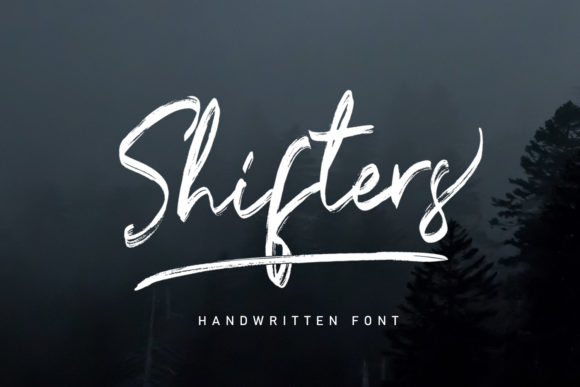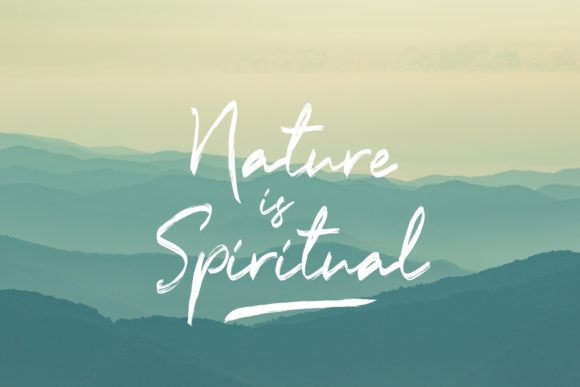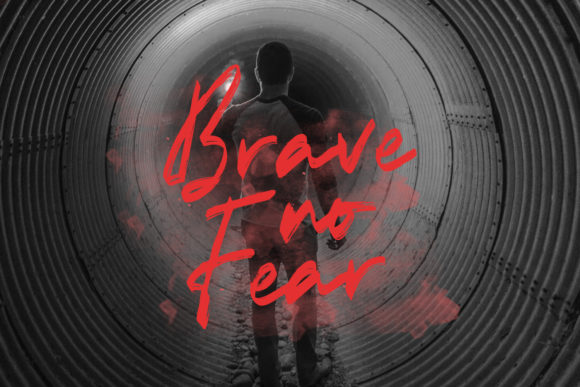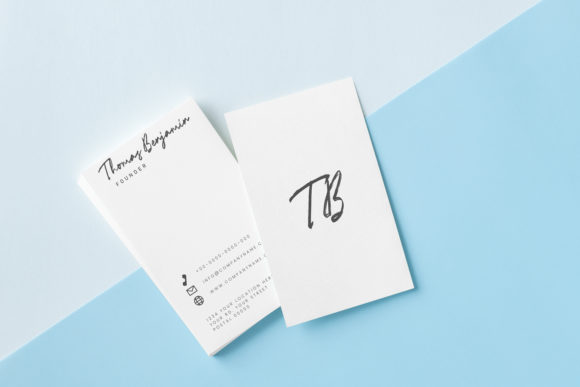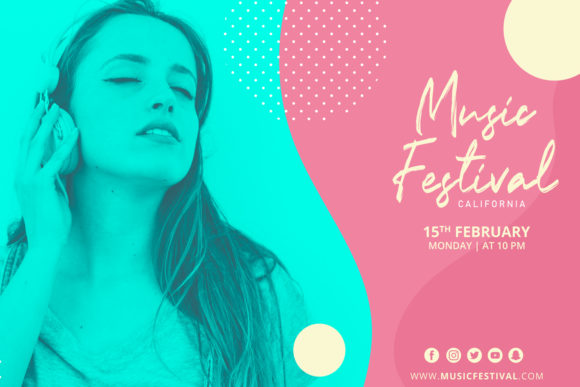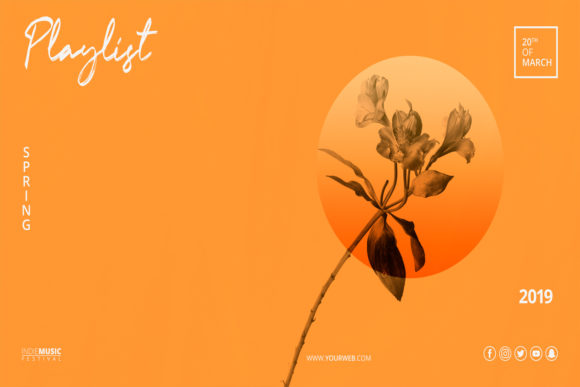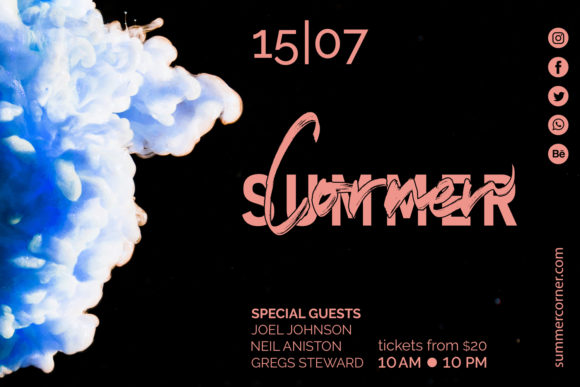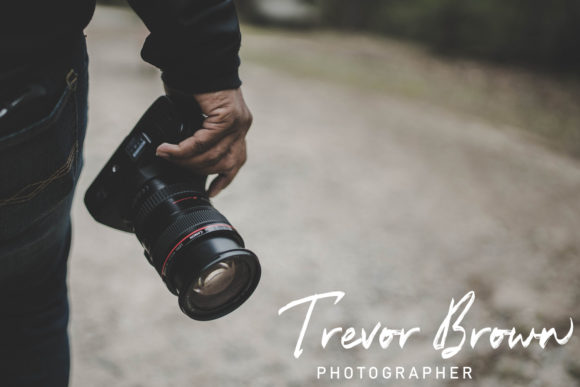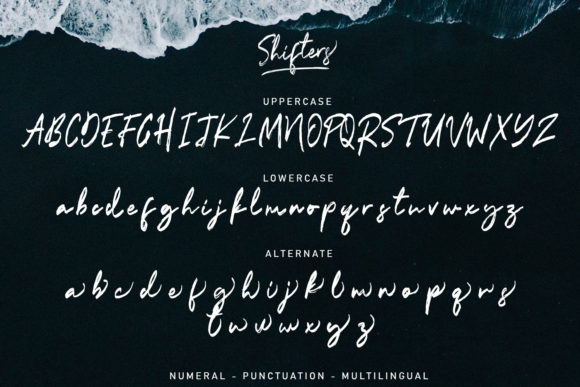
Shifters Font
About Shifters Font
Shifters results out of a stunning pairing of a brush pen and pencil that makes it look incredibly endearing and authentic. Use this gorgeous and unique handwritten font to bring any DIY project to life!